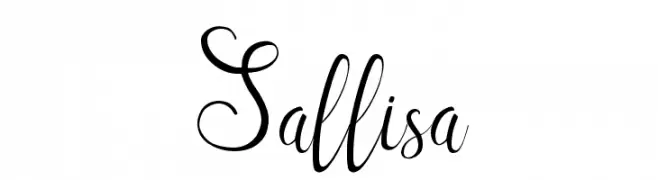
A flowing, cursive font with elegant loops and swashes, offering a handwritten appearance.
A sophisticated and elegant script font with flowing, interconnected letters.